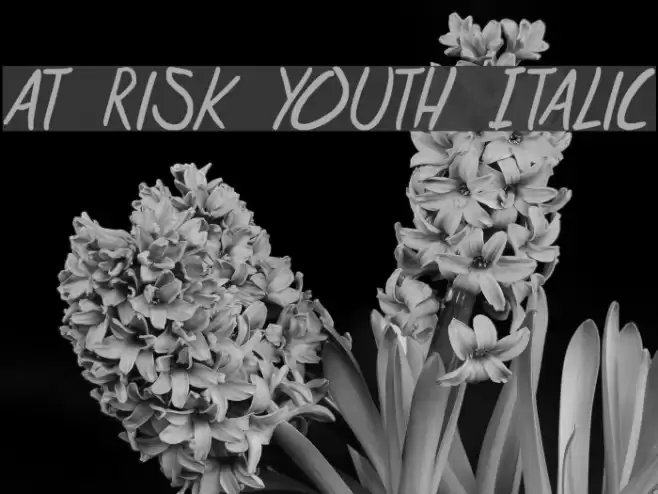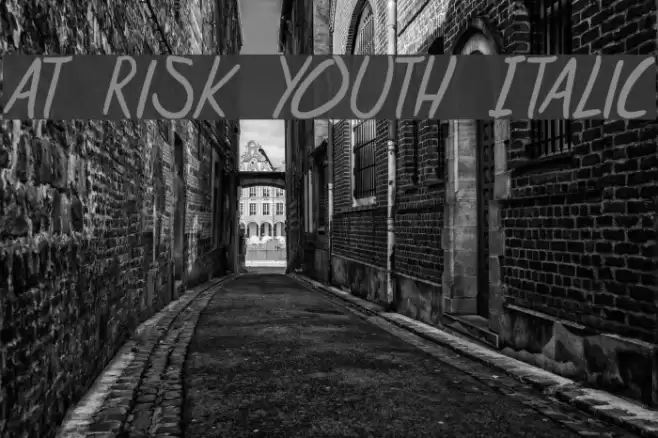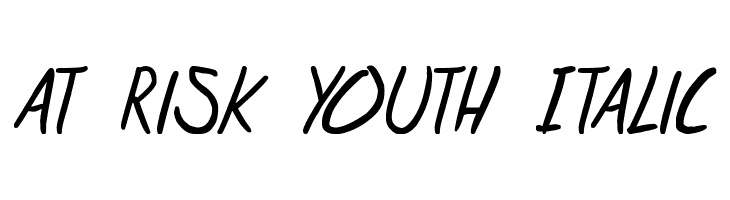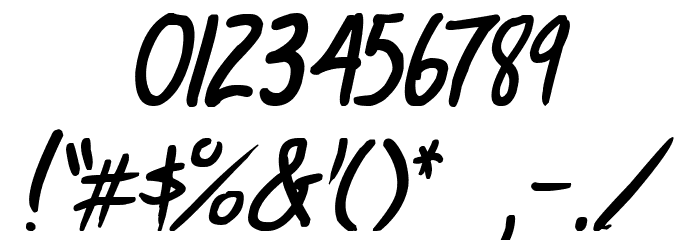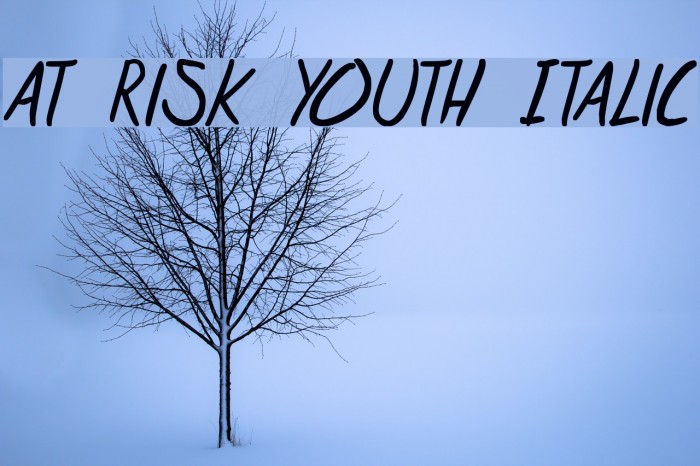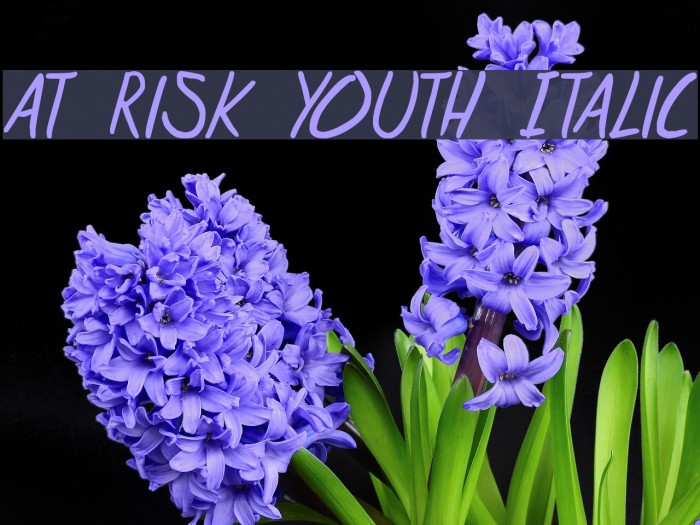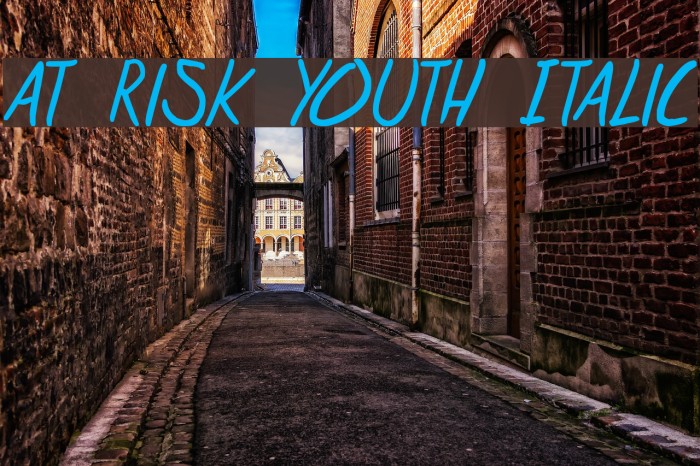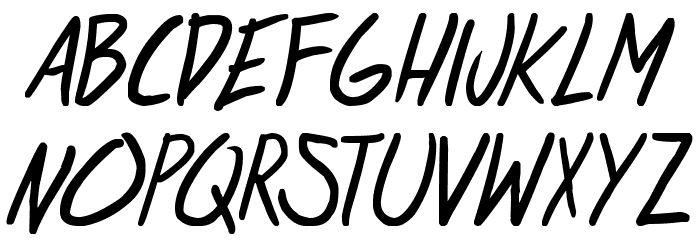
at risk youth Italic Font
at risk youth Italic Description
This font exudes a dynamic and energetic vibe, characterized by its handwritten style with a noticeable slant, giving it an italic appearance. The letters are bold and slightly condensed, with a playful and informal touch. The strokes are consistent in thickness, providing a medium contrast that enhances readability while maintaining a casual aesthetic. The characters are closely spaced, which adds to the font's lively and spontaneous feel. This style is perfect for projects that require a personal and approachable tone.
A bold, italic, handwritten font with a playful and energetic style from Comic fonts.
- Proposed Projects: Ideal for youth-oriented branding, creative posters, social media graphics, and informal invitations.
- Character Spacing: Tight
- Use Case: Logos, Headlines, Informal Texts